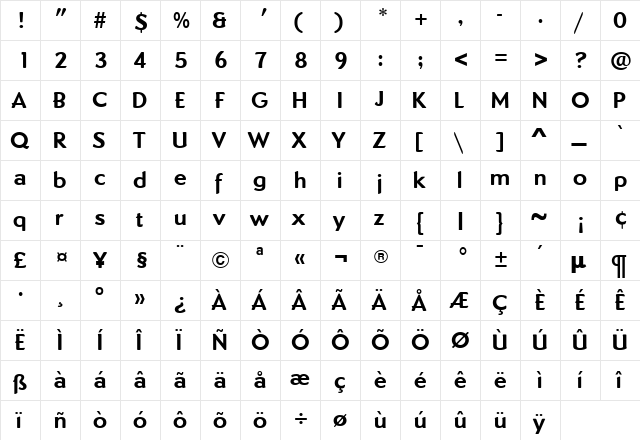
DundeeBold Bold
Design Context for DundeeBold Typeface
DundeeBold offers clean, dependable letterforms without strong stylistic allegiance, making it a practical choice for designers who need flexibility. The heavy weight commands attention and anchors typographic hierarchies.